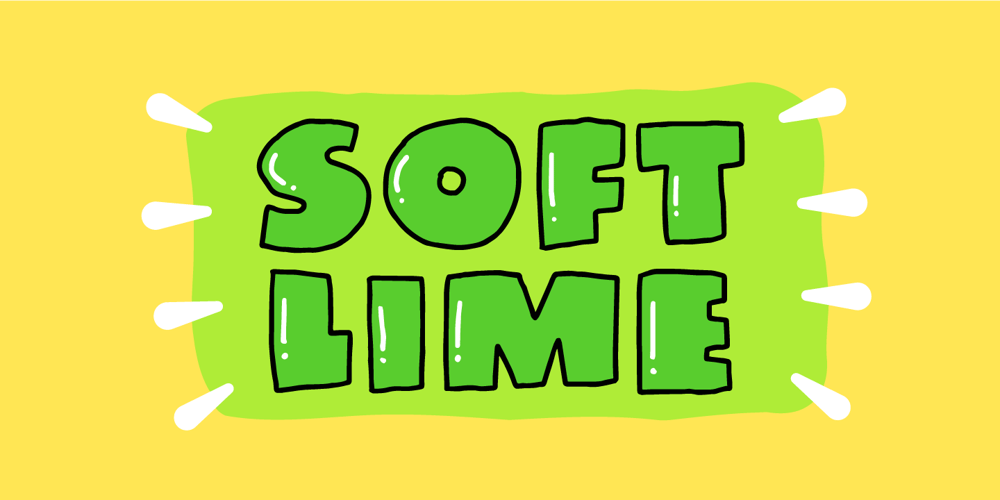
Soft Lime Font Family was designed by Jakob Fischer and published by PizzaDude.dk. Soft Lime contains 5 styles and family package options. Soft Lime is my simple, yet powerful typeface. It definitely fits in the comic department, but is very useful for posters, postcards (do anybody use these anymore?!) greeting cards and anything that needs a legible handmade typeface.It comes in several versions, that can be mixed for great results – and of course they all have multilingual support!